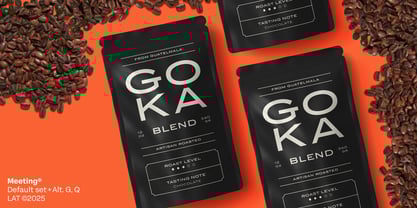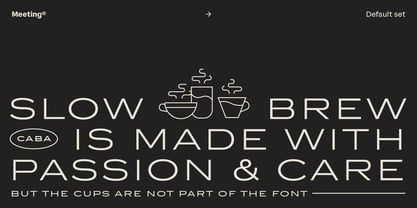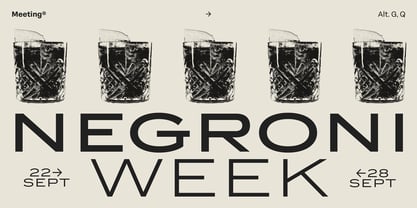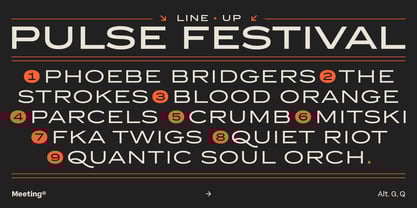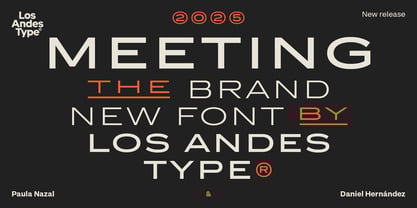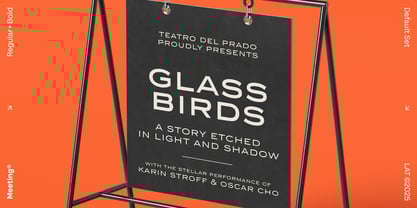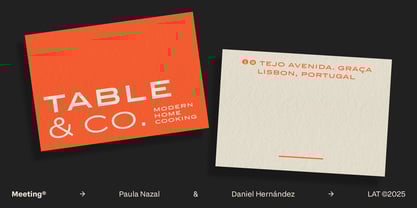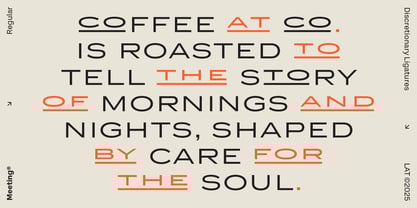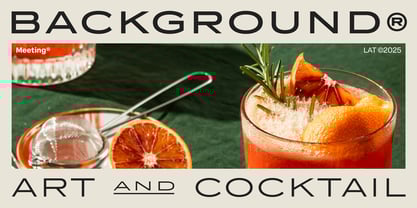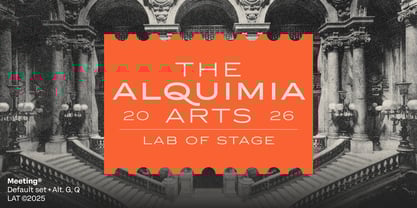
Meeting
by Los Andes
The Meeting Font Family was designed by Paula Nazal Selaive, Daniel Hernández and published by Los Andes. Meeting contains 3 styles and family package options.
Meeting. Space, rhythm, and presence. Meeting is a sans serif with wide capitals and firm proportions. It carries a contained elegance and a contemporary feel, inspired by the sobriety of Copperplate Gothic, reinterpreting its spirit with a more relaxed and modern approach. Its generous spacing gives each word room to breathe, achieving clear reading and balanced composition. Built from solid shapes and clean strokes, its curves are precise, its cuts defined, and its structure holds a visual weight that conveys confidence. Its design embraces the value of pause. Conceived for projects with character—from cocktail or coffee labels to festival posters, menus, music, or handcrafted products—Meeting has the poise of a serious typeface with the charm of a good Negroni: balanced, bold, and with just the right touch of freshness.
Designers: Paula Nazal Selaive, Daniel Hernández
Publisher: Los Andes
Foundry: Los Andes